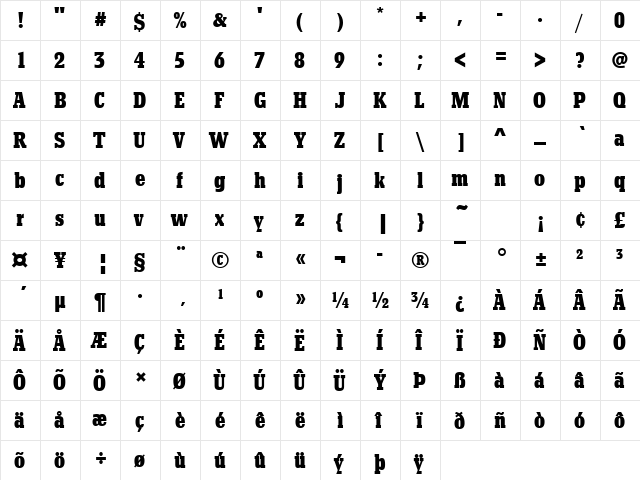
BetonTBolCon Regular
Design Context for BetonTBolCon Typeface
BetonTBolCon is a composed and adaptable typeface that performs quietly and consistently across a wide range of design contexts.